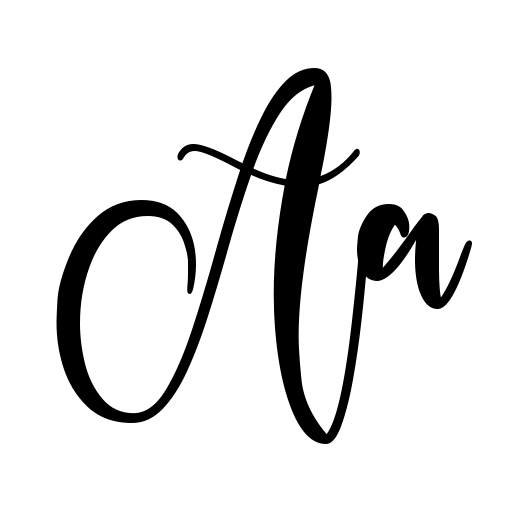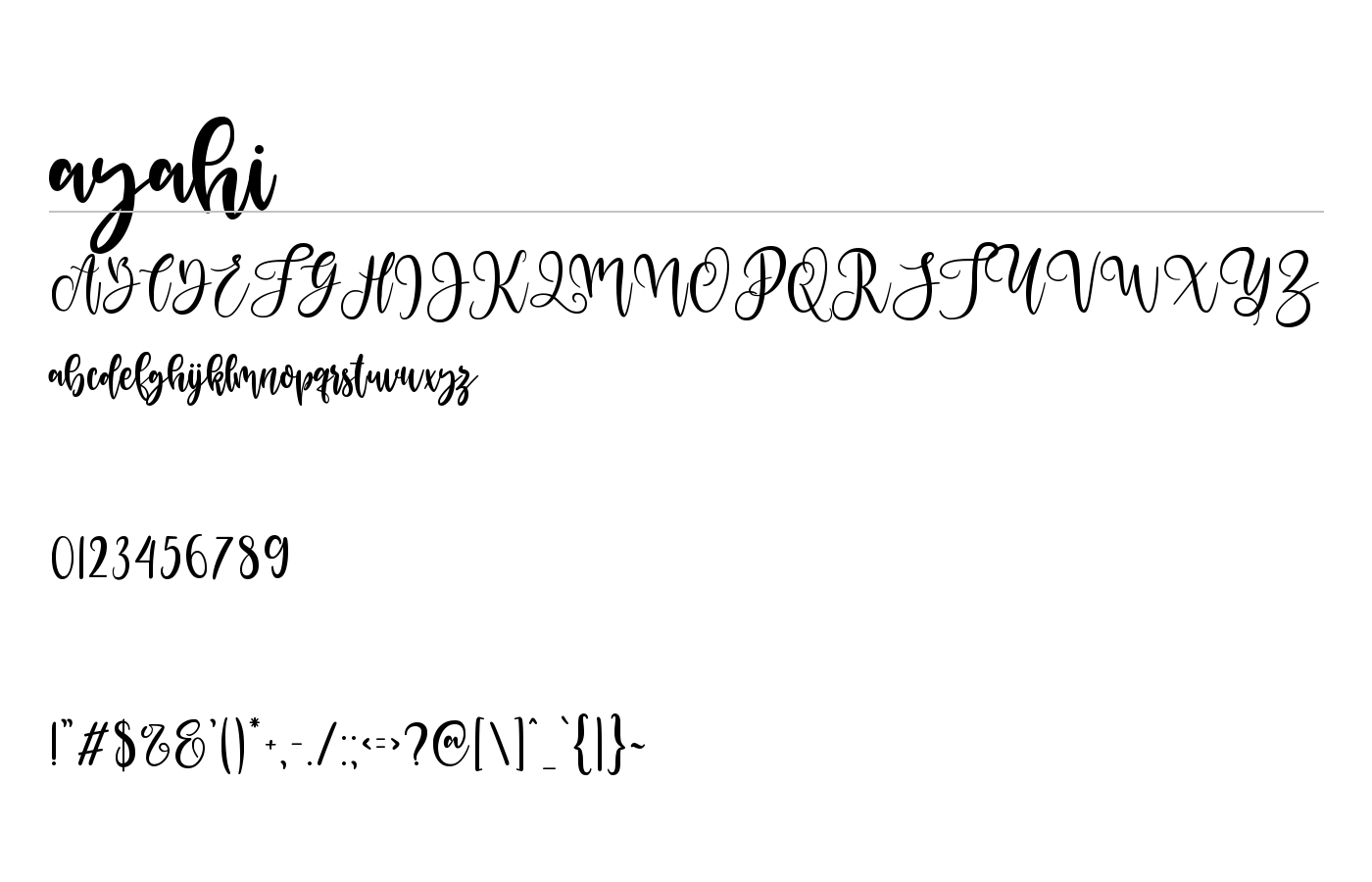
Ayahi Font is a playful and elegant script typeface with a handwritten feel, featuring fluid, decorative uppercase letters and more compact, bold lowercase characters. Its moderate stroke contrast and whimsical curves make it perfect for creative branding, invitations, and headlines where a personal, artistic touch is desired. This font brings charm and personality to designs aiming to convey warmth and uniqueness.
ayahi Font
About ayahi Font